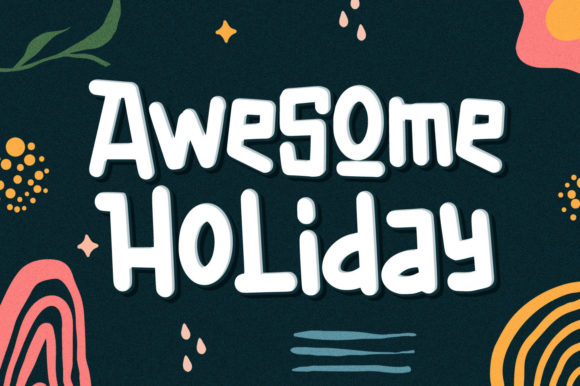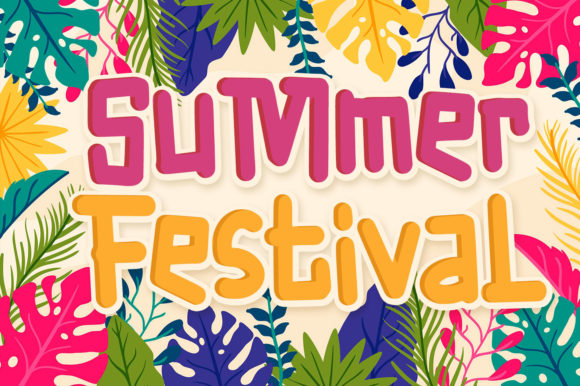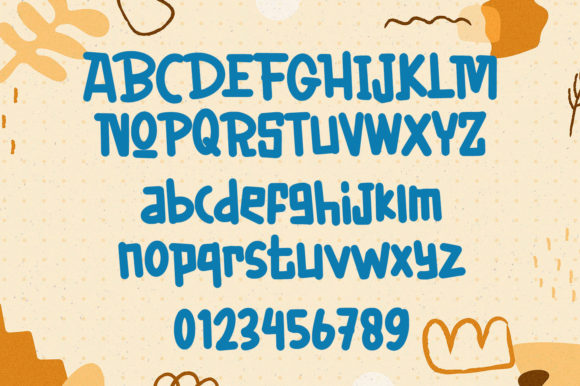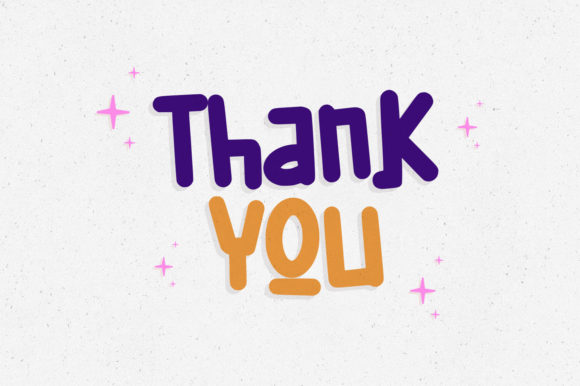
Introducing Amoku Runsel Font: The Cute and Chunky Charactered Display Font
Are you tired of using the same old fonts for your creative projects? Look no further! Amoku Runsel Font is here to take your designs to the next level. This adorable and chunky charactered display font is perfect for adding a touch of personality to your work. With its colorful and bold style, Amoku Runsel Font is sure to make your creative ideas come alive!
What is Amoku Runsel Font?
Amoku Runsel Font is a unique and eye-catching display font that is designed to add a playful touch to your designs. Its chunky characters and bold lines make it perfect for headlines, titles, and other display text. The font is highly legible, even at large sizes, making it ideal for use on posters, billboards, and other large-format designs.
Features of Amoku Runsel Font
- Cute and Chunky Characters: Amoku Runsel Font features adorable and chunky characters that are sure to capture attention.
- Colorful and Bold Style: The font’s colorful and bold style makes it perfect for adding a pop of color to your designs.
- Highly Legible: The font is highly legible, even at large sizes, making it ideal for use on a variety of design projects.
Uses for Amoku Runsel Font
Amoku Runsel Font is perfect for a variety of design projects, including:
- Posters and Flyers: The font’s bold and colorful style makes it perfect for use on posters and flyers.
- Social Media Graphics: Amoku Runsel Font is ideal for use on social media graphics, including Facebook and Instagram posts.
- Logos and Branding: The font’s unique and eye-catching style makes it perfect for use on logos and other branding materials.
- Crafting and Scrapbooking: Amoku Runsel Font is also perfect for use in crafting and scrapbooking projects, adding a personal touch to your creations.
Why Choose Amoku Runsel Font?
There are many reasons to choose Amoku Runsel Font for your design projects. Here are just a few:
- Unique Style: Amoku Runsel Font has a unique and eye-catching style that is sure to set your designs apart.
- High-Quality Design: Amoku Runsel Font is designed to high-quality standards, ensuring that your designs look professional and polished.
Tips for Using Amoku Runsel Font
Here are a few tips for using Amoku Runsel Font in your design projects:
- Use it as a Headline Font: Amoku Runsel Font is perfect for use as a headline font, adding a bold and eye-catching touch to your designs.
- Experiment with Colors: The font’s colorful style makes it perfect for experimenting with different colors and color combinations.
- Pair it with Other Fonts: Amoku Runsel Font pairs well with other fonts, making it perfect for use in combination with other typefaces.
Amoku Runsel Font is a unique and eye-catching display font that is perfect for adding a touch of personality to your design projects. With its cute and chunky characters, colorful and bold style, and high legibility, Amoku Runsel Font is sure to make your creative ideas come alive! Whether you’re a designer, crafter, or scrapbooker, Amoku Runsel Font is a great choice for any project.